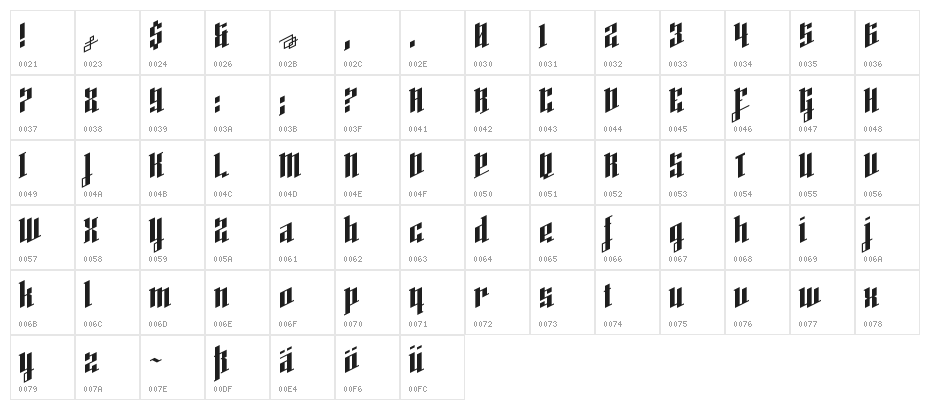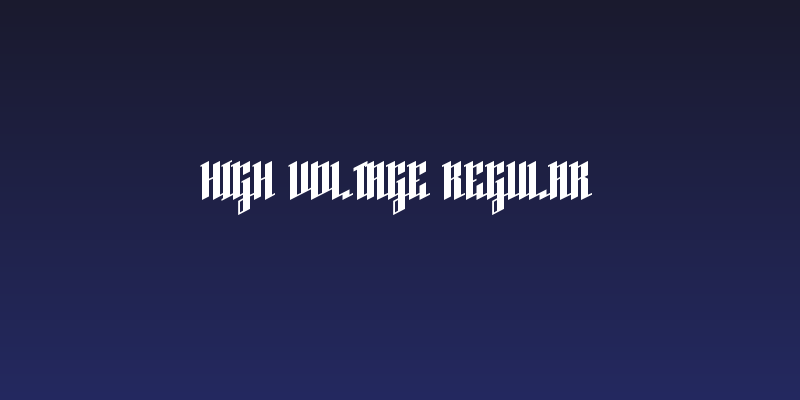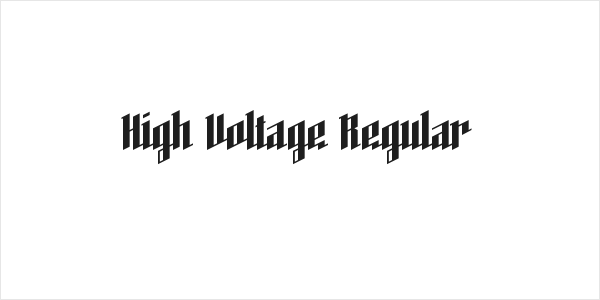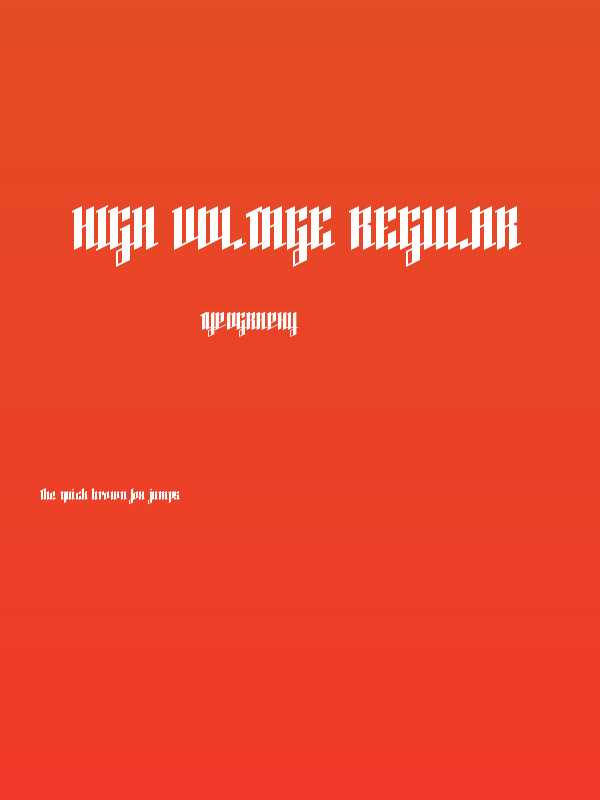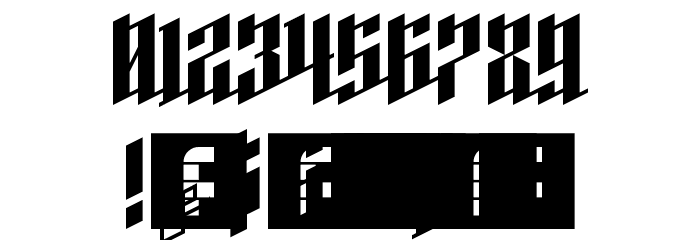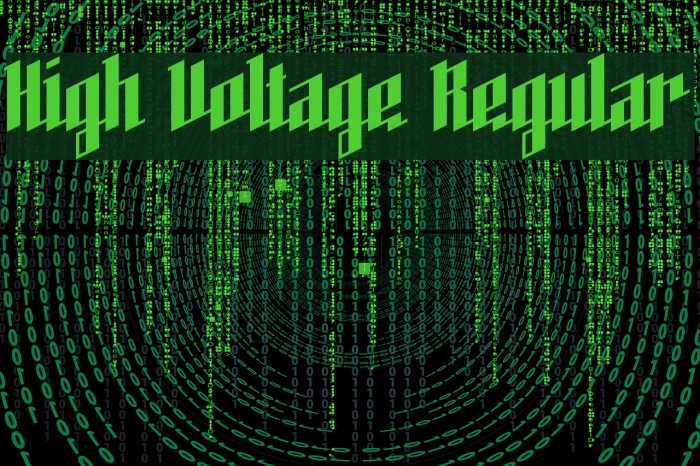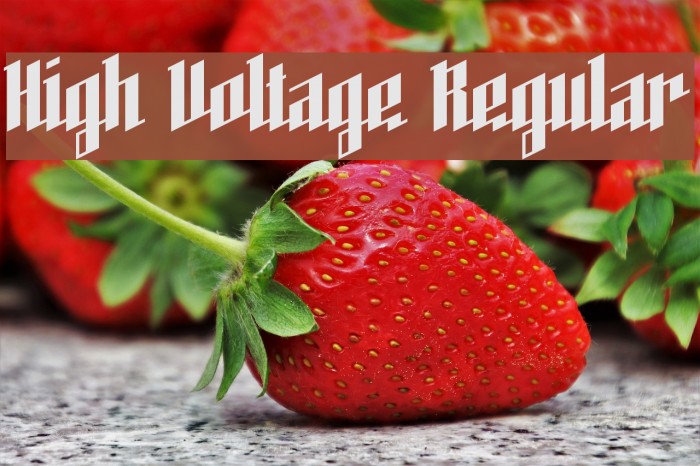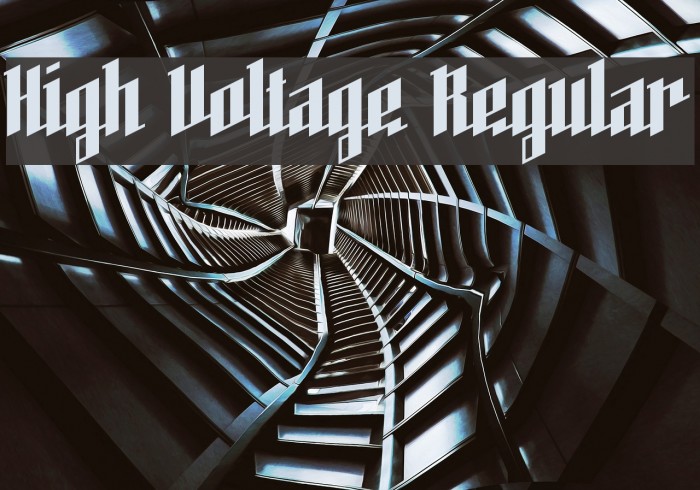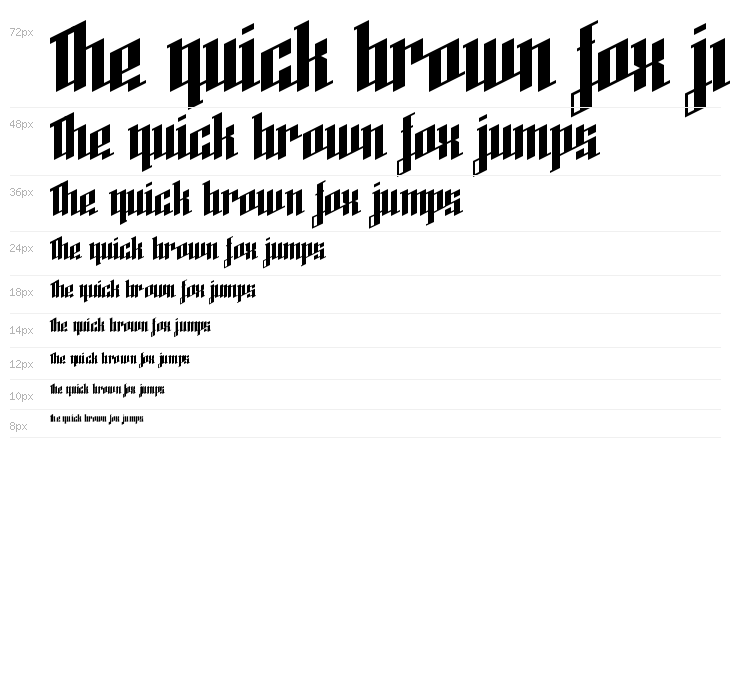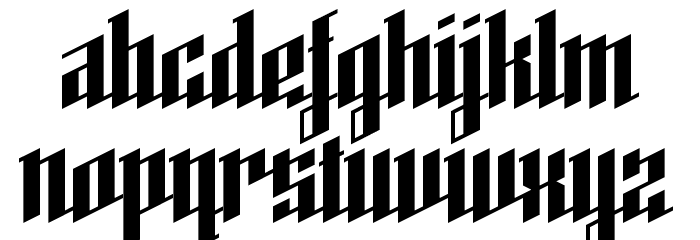
High Voltage Regular Font
High Voltage Regular Description
This font features a bold and striking design with a distinct blackletter influence, characterized by sharp angles and strong vertical lines. The uppercase and lowercase letters maintain a consistent style, with exaggerated serifs and a gothic flair. The numbers and special characters follow the same aesthetic, providing a cohesive look across all elements. The overall appearance is dramatic and eye-catching, making it suitable for projects that require a bold statement.
| Proposed Projects | Ideal for use in branding, posters, album covers, and any design that requires a bold, gothic aesthetic. |